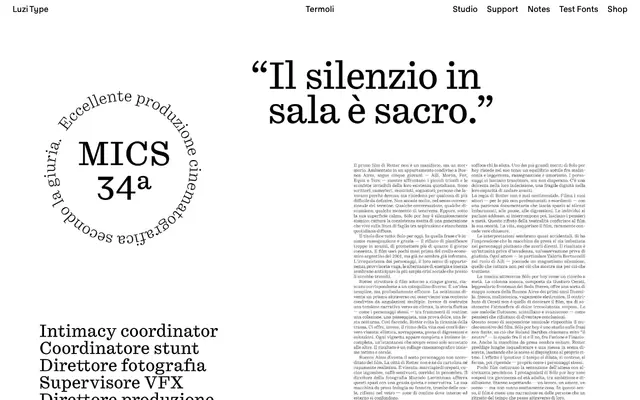
Termoli
A Scotch-genre serif drawing on Century Roman, with square serifs, slight contrast and drop terminals across six weights and a variable font axis.
Referencing the Scotch type tradition and Century Roman in particular, Termoli takes a contemporary approach with square serifs and drop terminals that give the letterforms a warm, lively quality. Six weights run from Light to Black, each with a matching italic, and the full family is available as individual static fonts or as two variable fonts covering the upright and italic respectively on a Light-to-Black axis. Language support covers Basic Latin, Latin-1 Supplement and Latin Extended-A, spanning a broad range of European scripts.
Termoli is explicitly positioned within the Scotch type genre, drawing on Century Roman as a reference point. Its square serifs, slight contrast and drop terminals align it with 19th-century Scotch Modern revivals rather than strictly transitional or Didone styles.